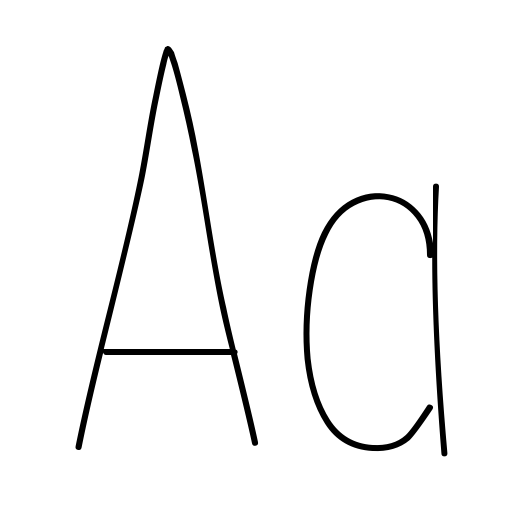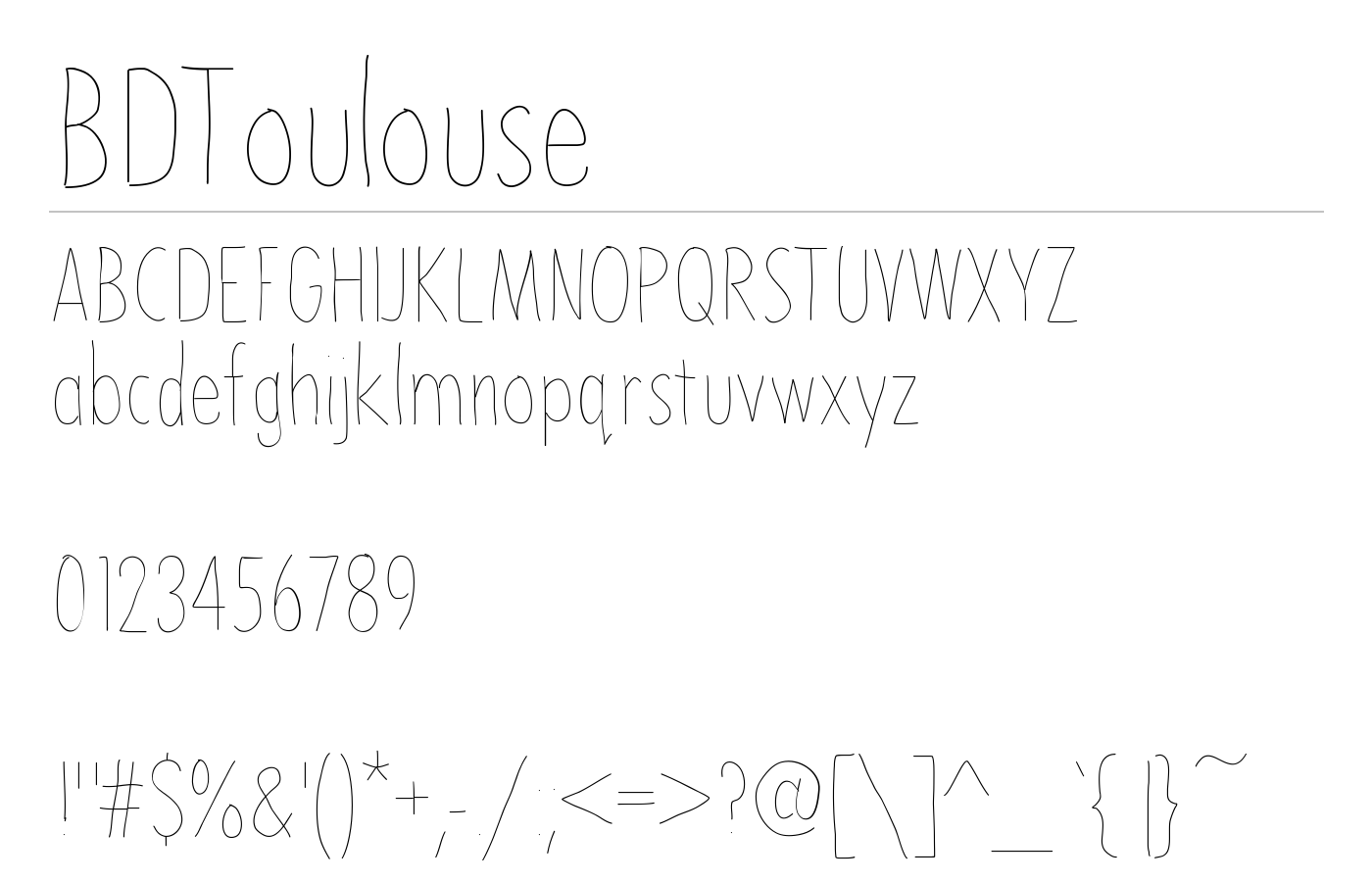
BDToulouse is a delicate, hand-drawn sans serif font characterized by its tall, narrow letterforms and ultra-light weight, giving it an airy and whimsical feel. Its thin strokes and slightly irregular shapes lend a playful and casual personality, making it ideal for creative projects, informal branding, or artistic editorial designs where a touch of personality and uniqueness is desired. This font works best in headlines or decorative uses where its light and quirky style can stand out without sacrificing readability.
BDToulouse Font
About BDToulouse Font